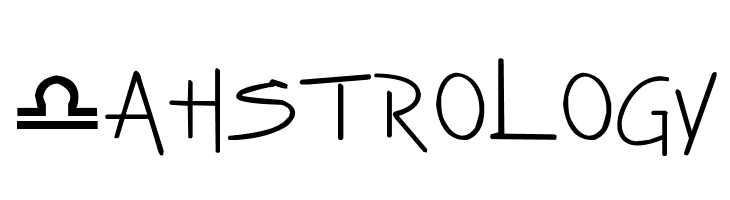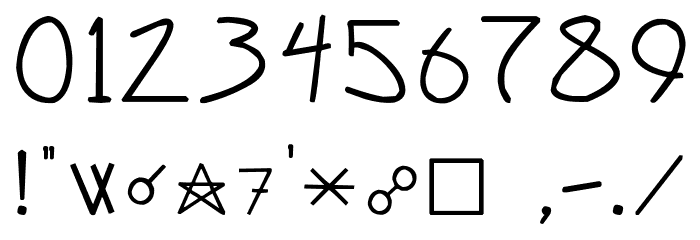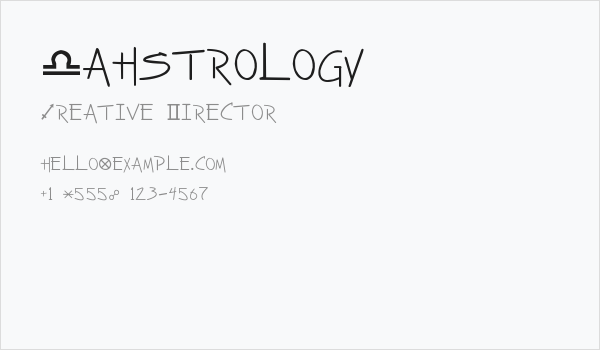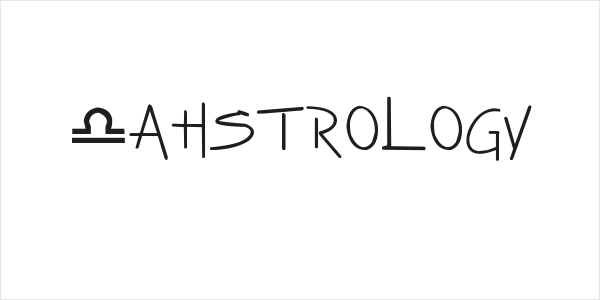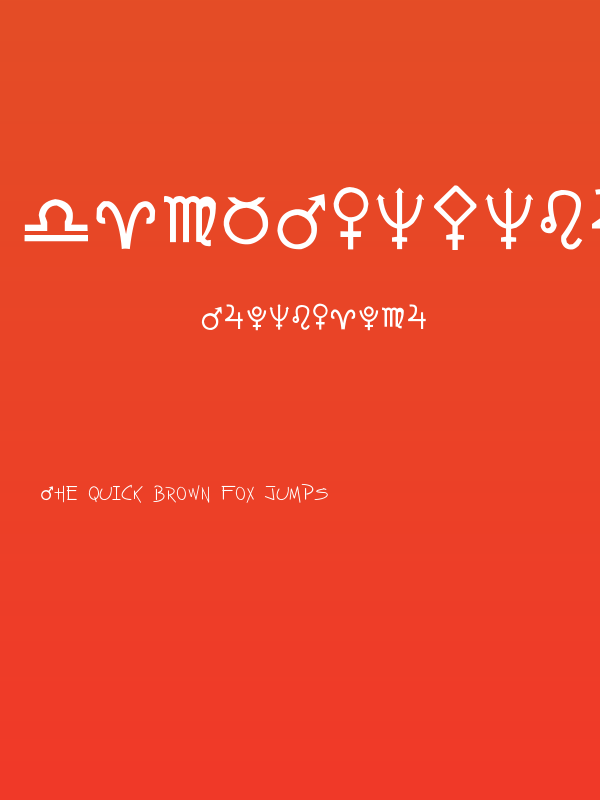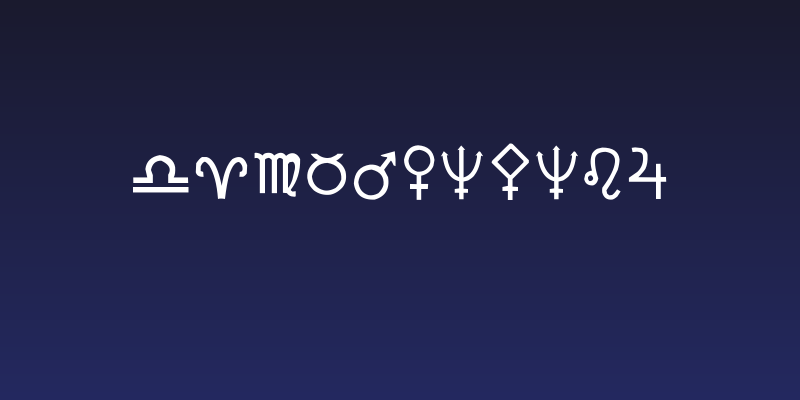
Zahstrology Font
Zahstrology Description
This font features a unique blend of astrological symbols and a playful, handwritten style. The uppercase letters are bold and slightly irregular, giving a whimsical and informal feel. The numerals are distinct with a quirky flair, each character maintaining a consistent stroke width. Special characters include a variety of astrological symbols, enhancing the mystical theme. The overall design is both decorative and functional, suitable for creative projects that require a touch of the cosmic or mystical.
| Proposed Projects | Ideal for astrology-themed designs, mystical event invitations, or creative branding projects. |